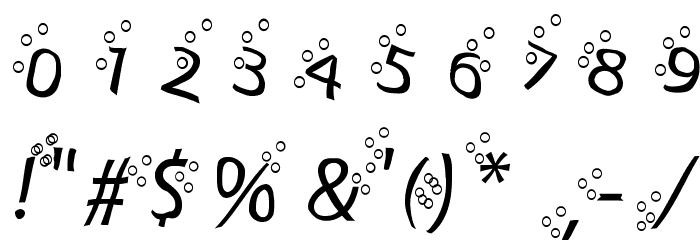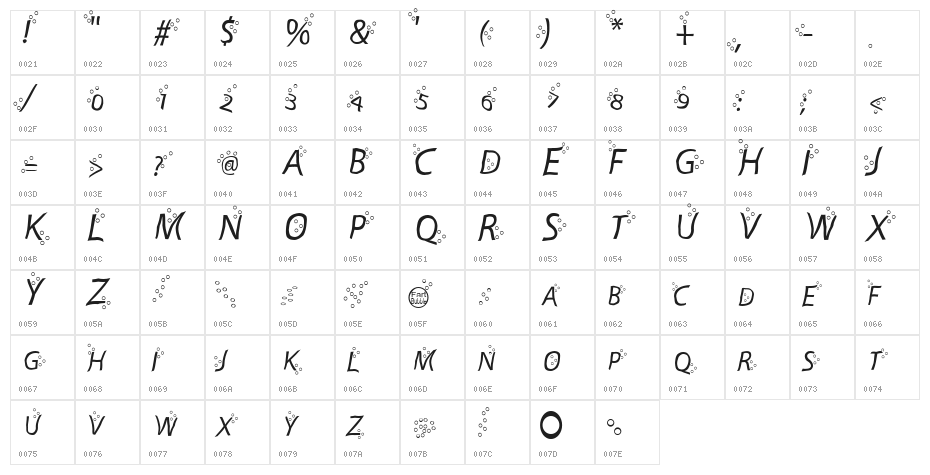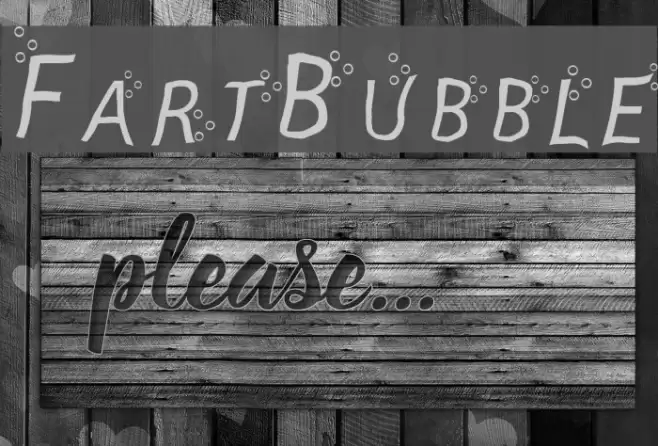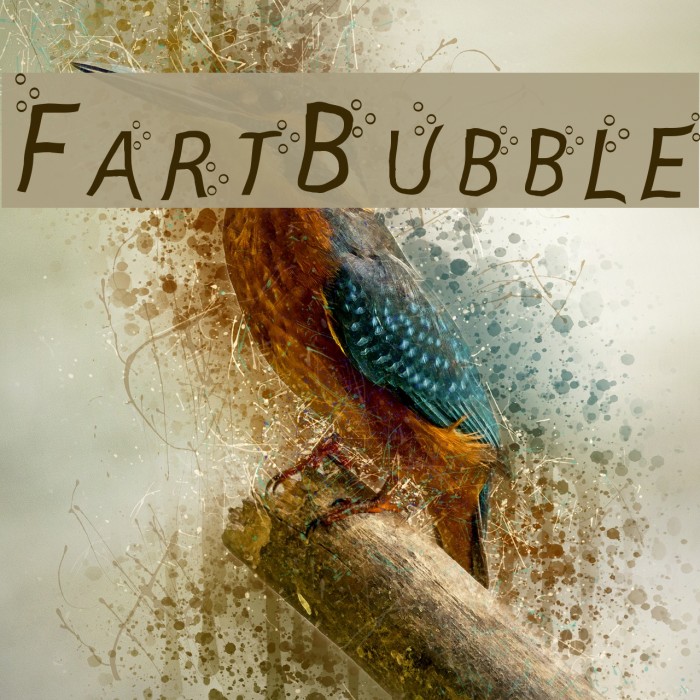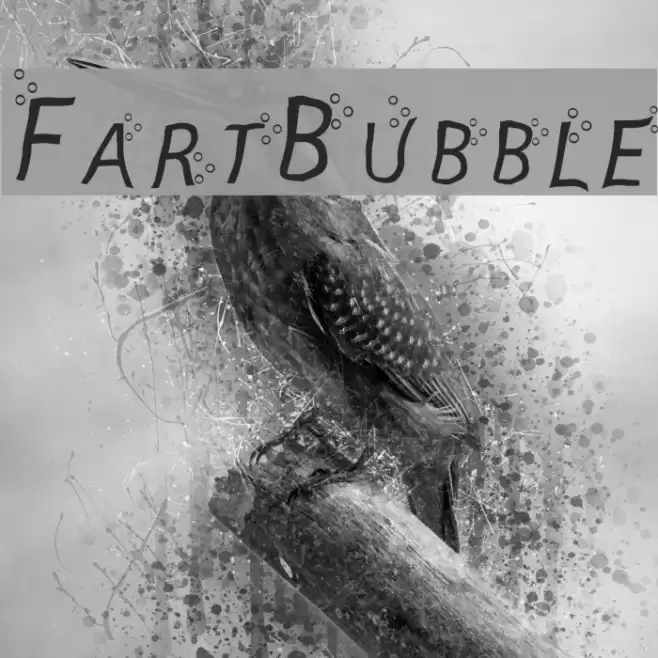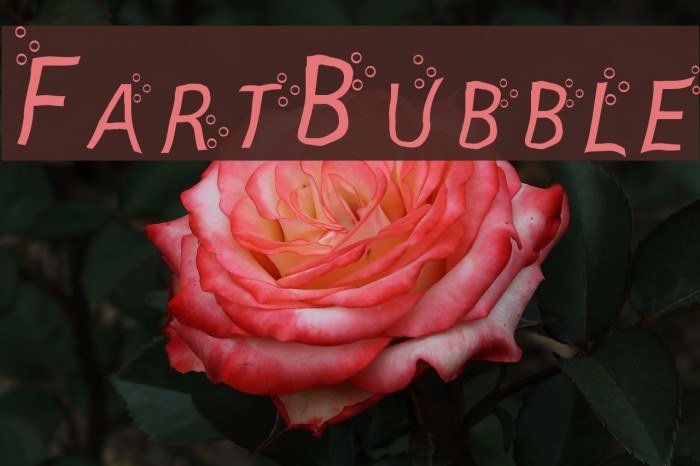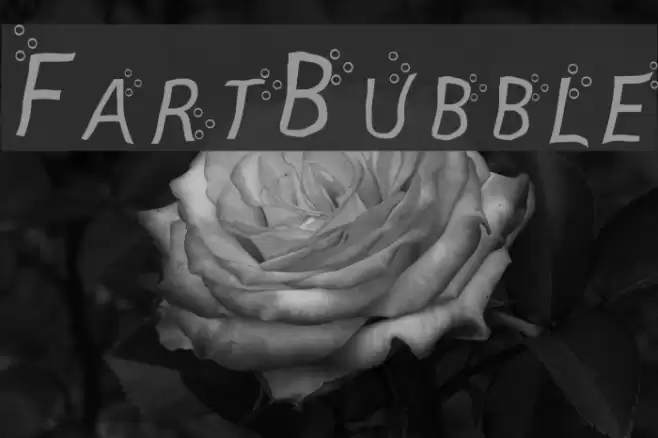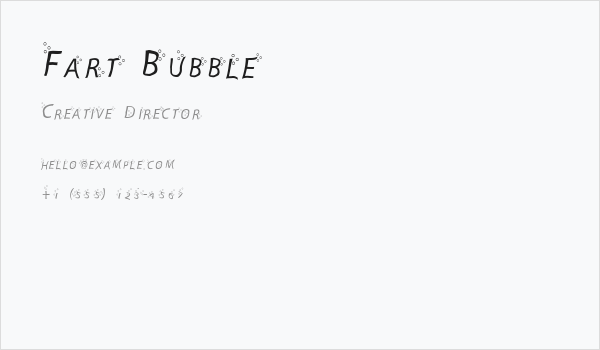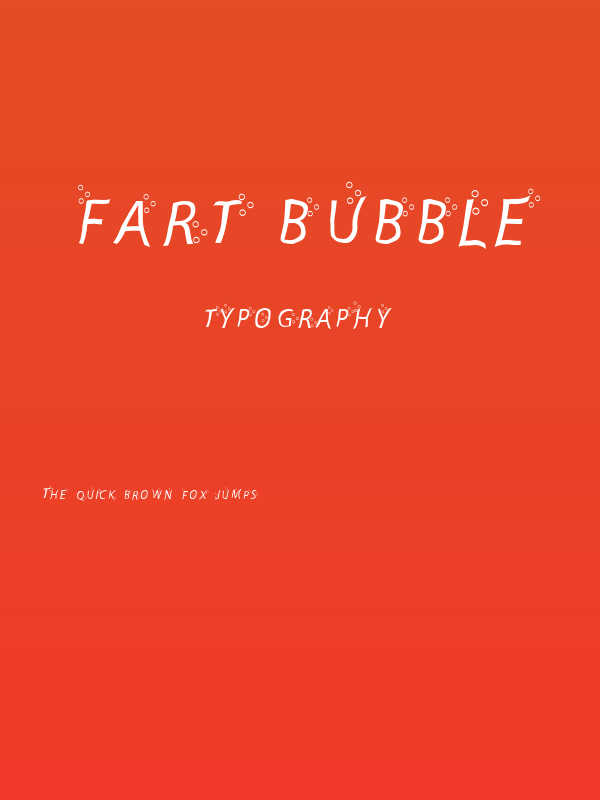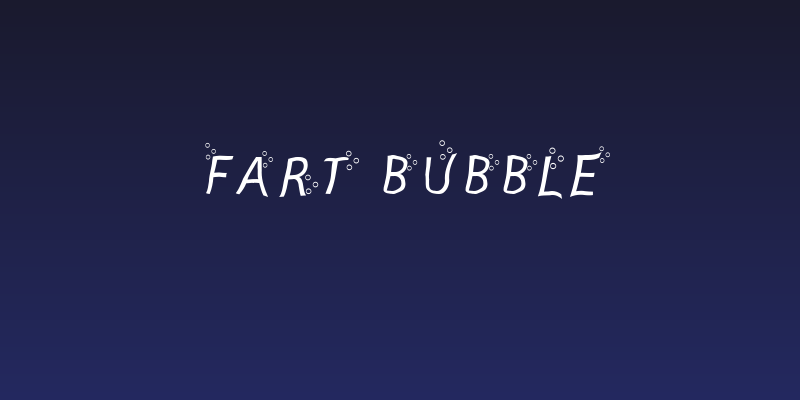
Fart Bubble Font
This playful and whimsical font features a unique design with bubble-like embellishments surrounding each character. The letters are slightly tilted, adding a dynamic and lively feel. The strokes are bold and consistent, providing a strong visual impact. The font maintains a consistent weight throughout, ensuring readability while still offering a fun and creative aesthetic. The inclusion of bubbles gives it a distinctive, almost cartoonish style that stands out, making it ideal for projects that require a touch of humor and creativity.
| Proposed Projects | Ideal for children's books, comic strips, playful branding, party invitations, and any project that benefits from a fun and whimsical touch. |